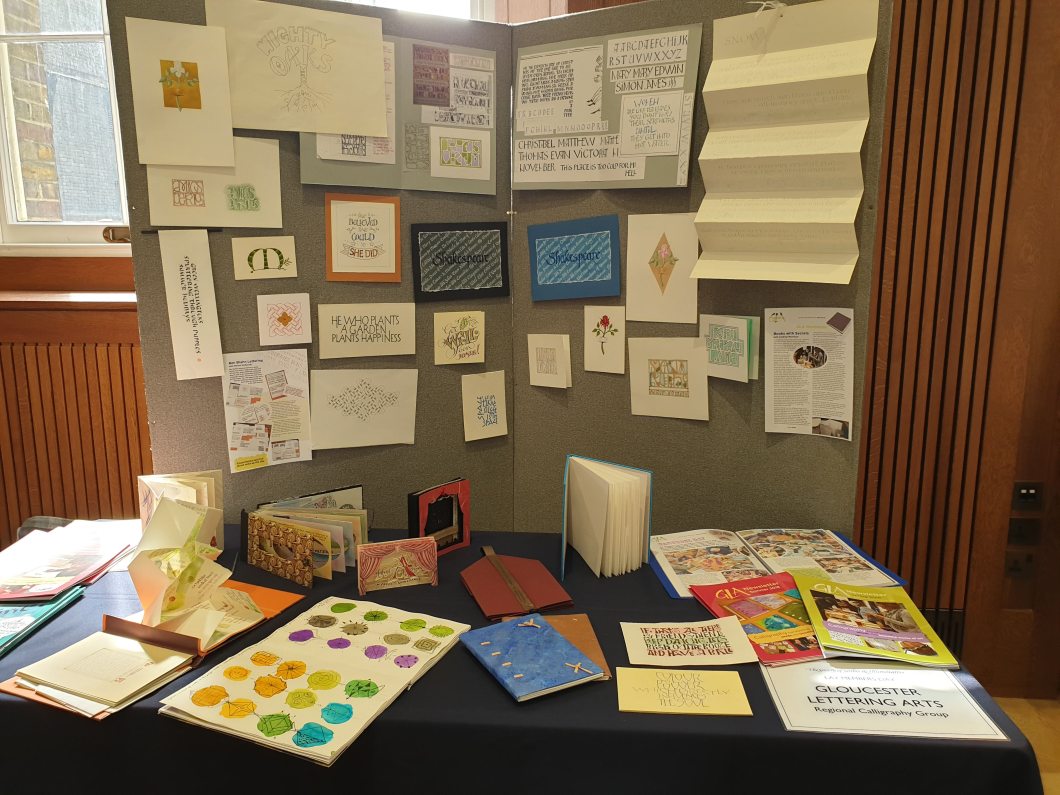
GLA was part of the SSI Lay Members’ Day in the Strand, London 11 May 2019. We took work representing nine of our workshops over the past 18 months and a range of work on theatres or maps done during recent term-time classes with Josie. Our stall was manned by Jean Chamberlain, Sue Hodgkinson and Anne-Marie Delaney. We were delighted to talk with other calligraphers about the variety of our work, our tutors and so on. Among the demonstrators was our own David Simons with his beautiful copperplate and flourishing. We also heard a really entertaining lecture by design historian, author, TV presenter and broadcaster, Mark Ovenden – looking at the work of Edward Johnston and Eric Gill. Who knew that 100 years on their typefaces would still be such a part of our daily lives – on all manner of packaging or adverts and of course the London Transport signage.